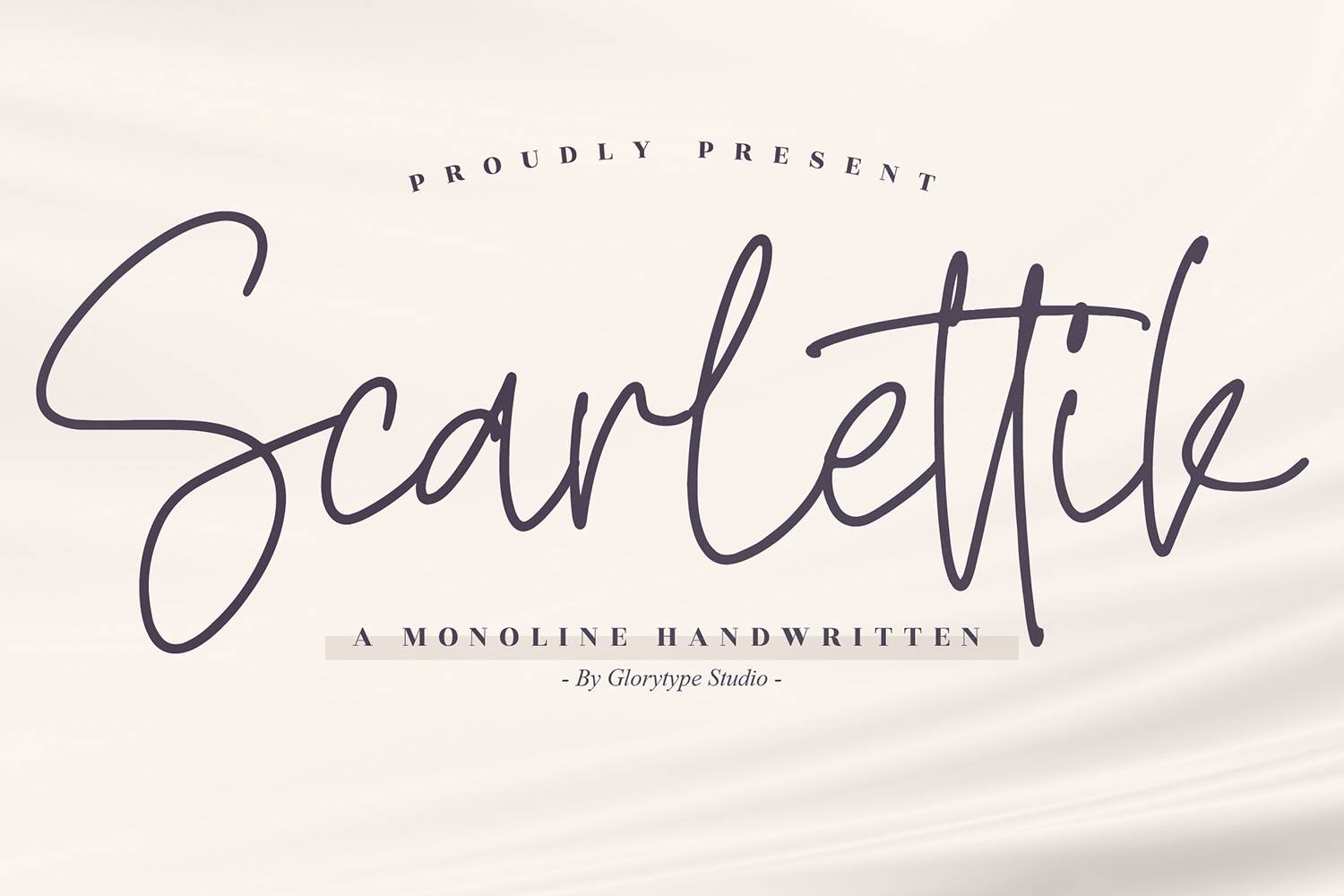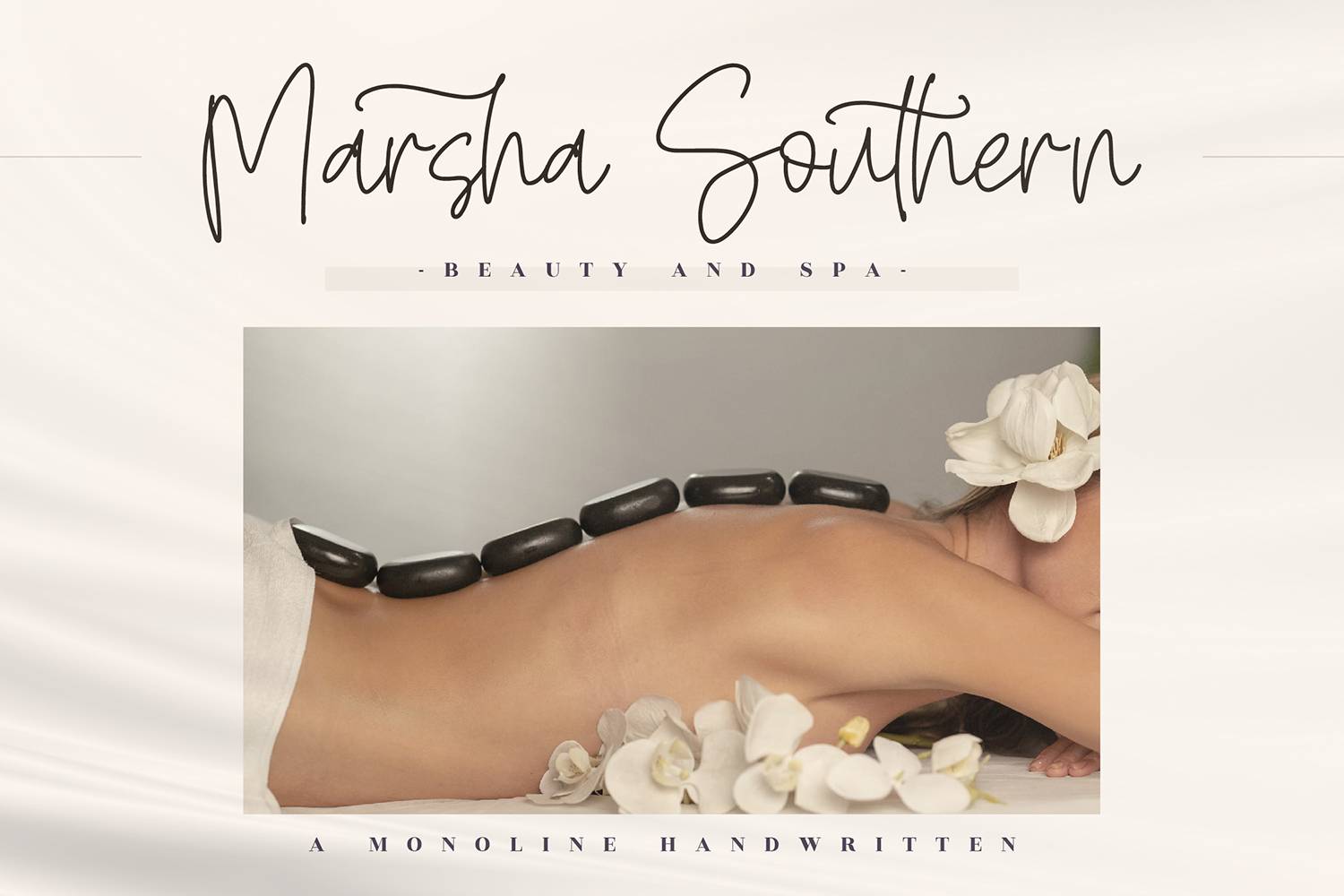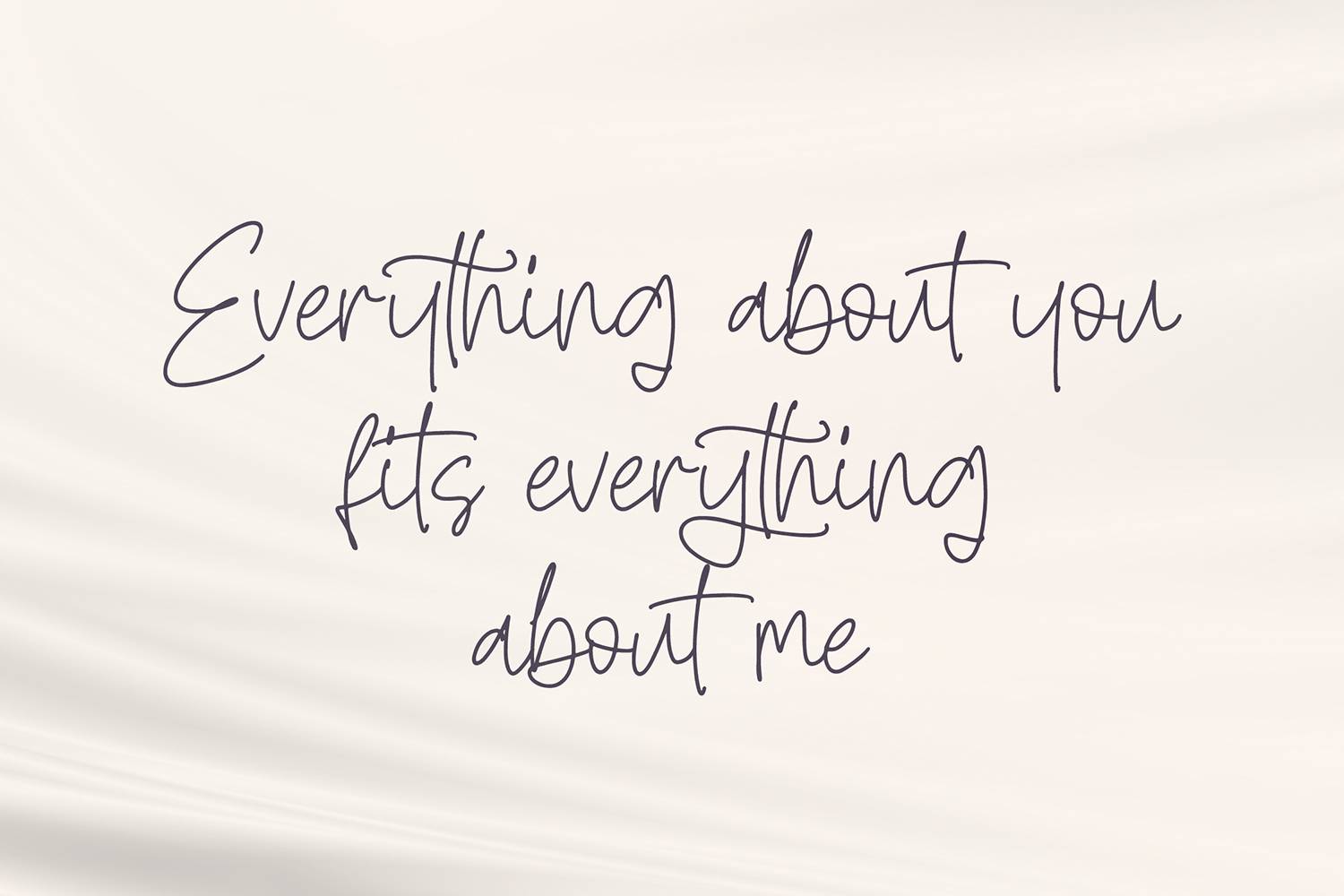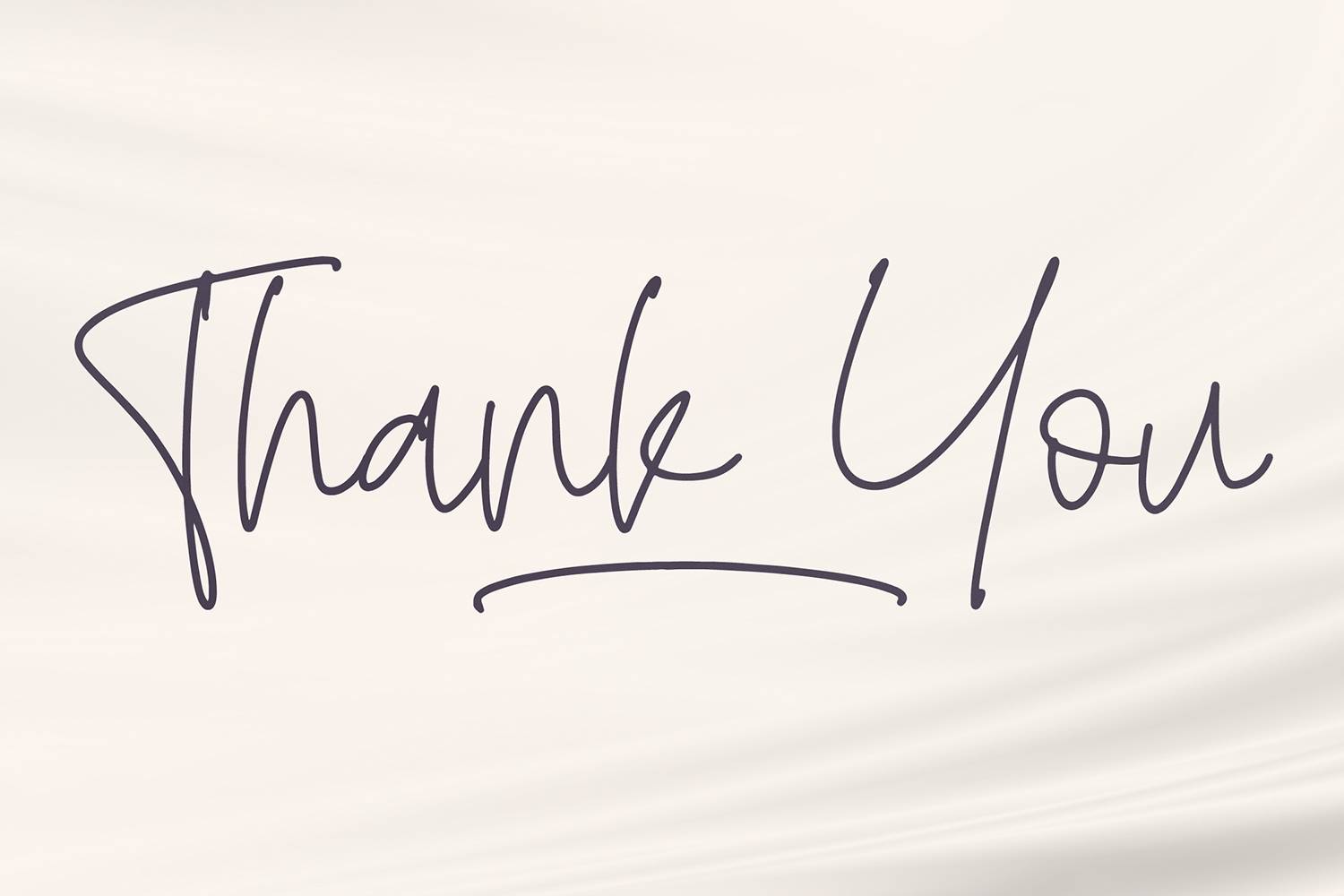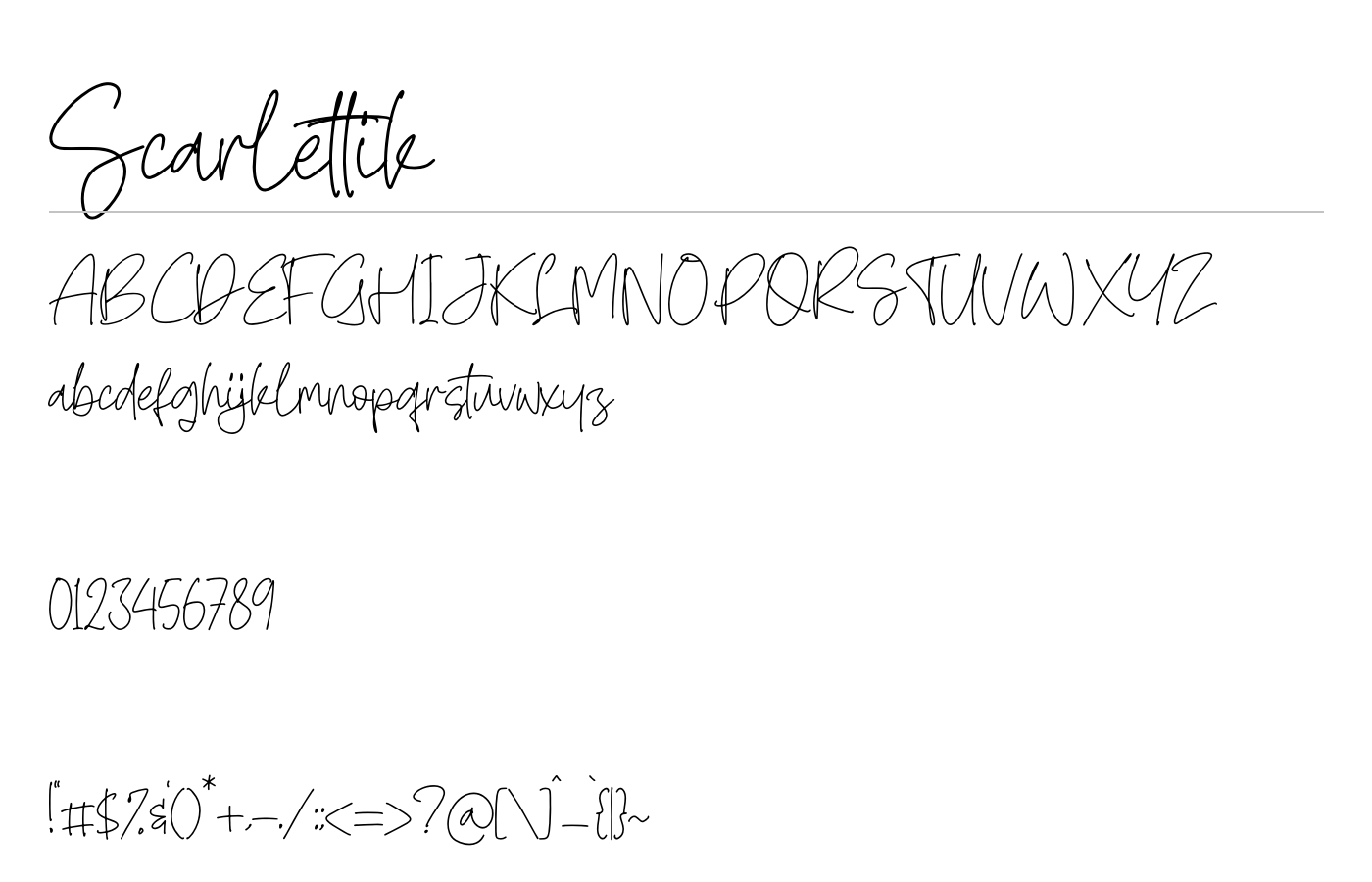
Scarlettik is a delicate, handwritten script font that features light, airy strokes with a natural, casual flair. Its thin, flowing lines and slightly irregular letter shapes give it a playful yet elegant personality, making it perfect for personal branding, invitations, and creative projects that benefit from a warm, approachable touch. This font works best in headlines and decorative text where its unique style can stand out and add charm.
Scarlettik Font
About Scarlettik Font